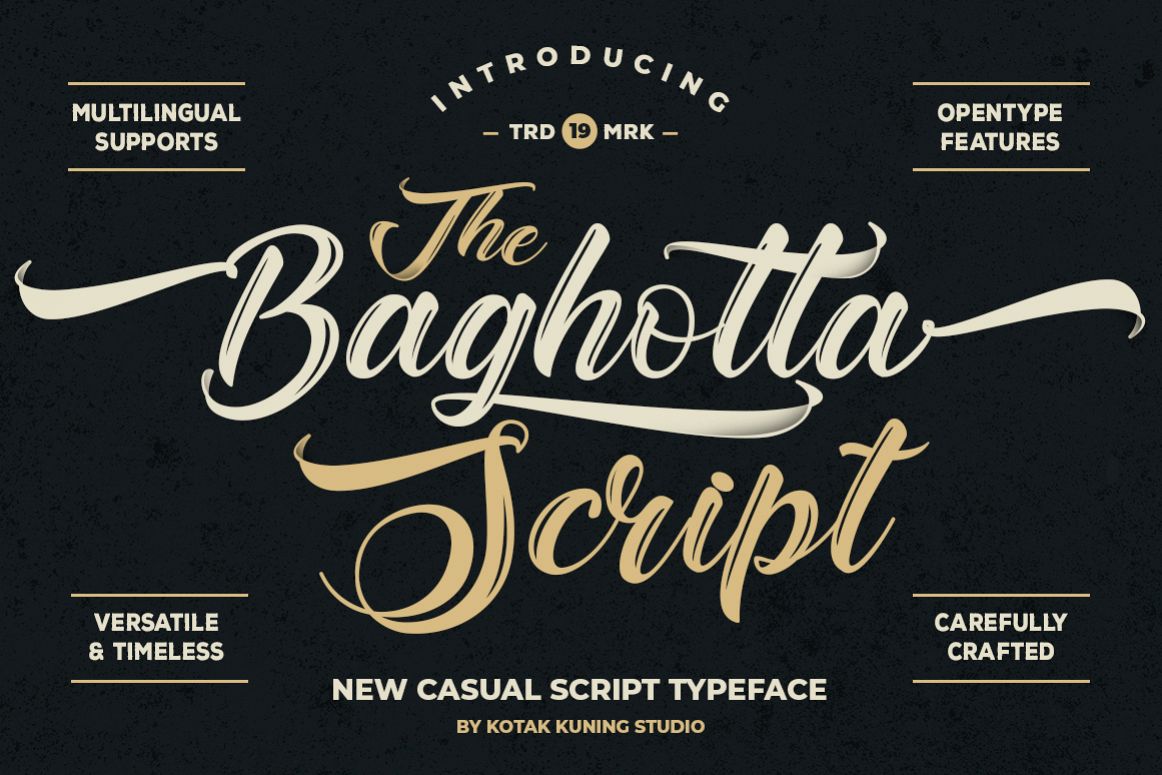
Vintage Script - The Baghotta Font
Introducing my new font The Baghotta Script!!
!A casual script typeface and combination with Hand Lettering style which gives more vintage touch and makes the font looks being customized.
This font is suitable to use as a logotype, product designs, label, watermark, social media posts, apparel, invitation, signboard, sports club, motor/car, special events or anything that need handwriting taste.
• The Baghotta Script includes capital and lowercase letters, Alternates, and Ligatures
• Numbers + punctuation
• Foreign language support